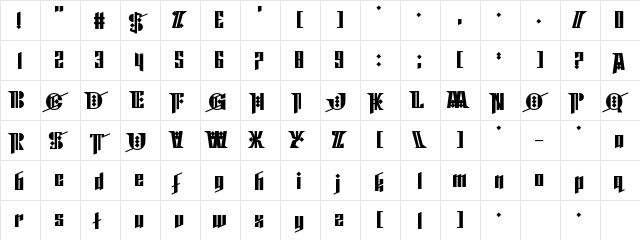
Cyberpunk Sealion Regular
| Designer | Allison James |
Design Context for Cyberpunk Sealion Typeface
Cyberpunk Sealion has a distinctly futuristic character, with geometric precision and clean angles that feel at home in technology, gaming, and sci-fi contexts.